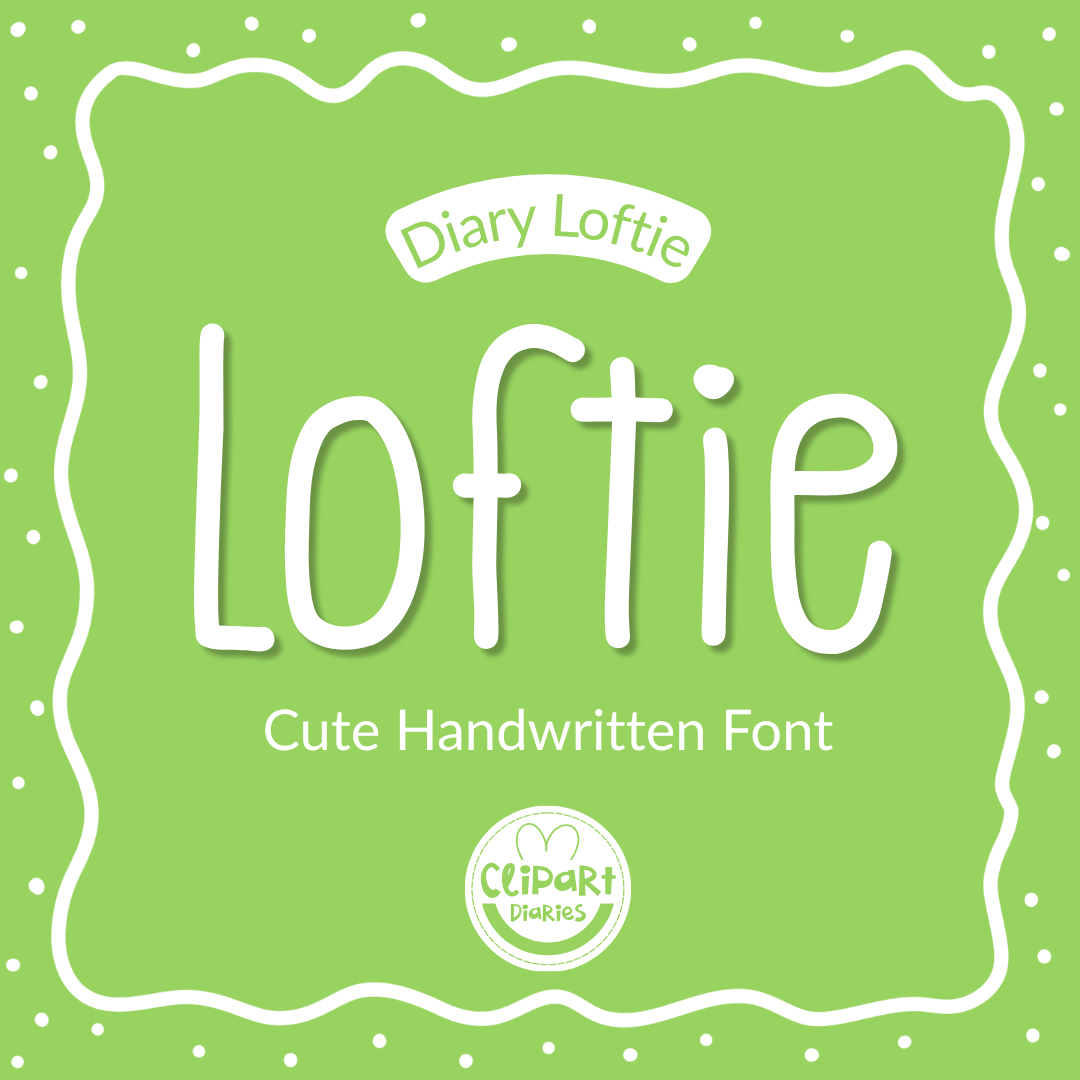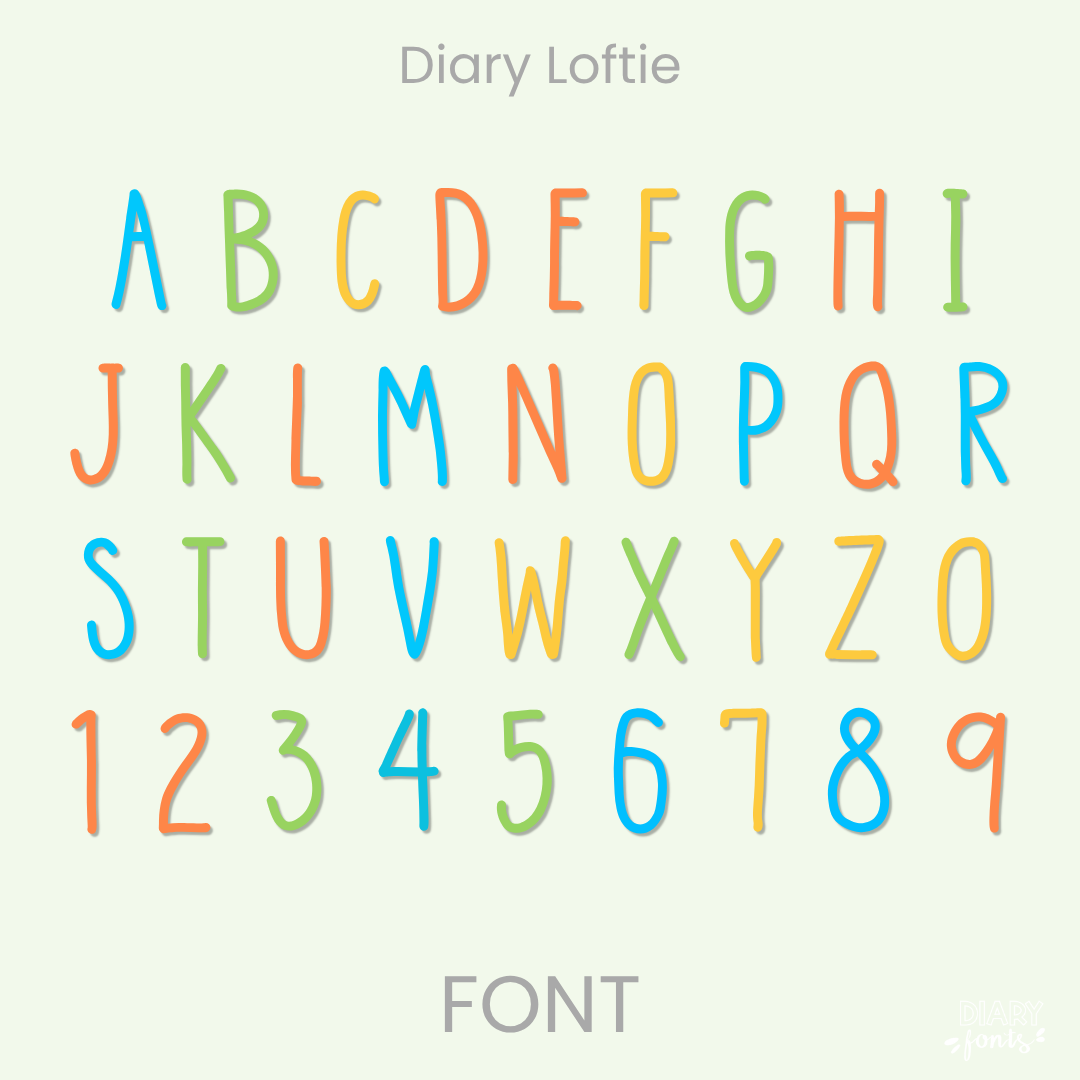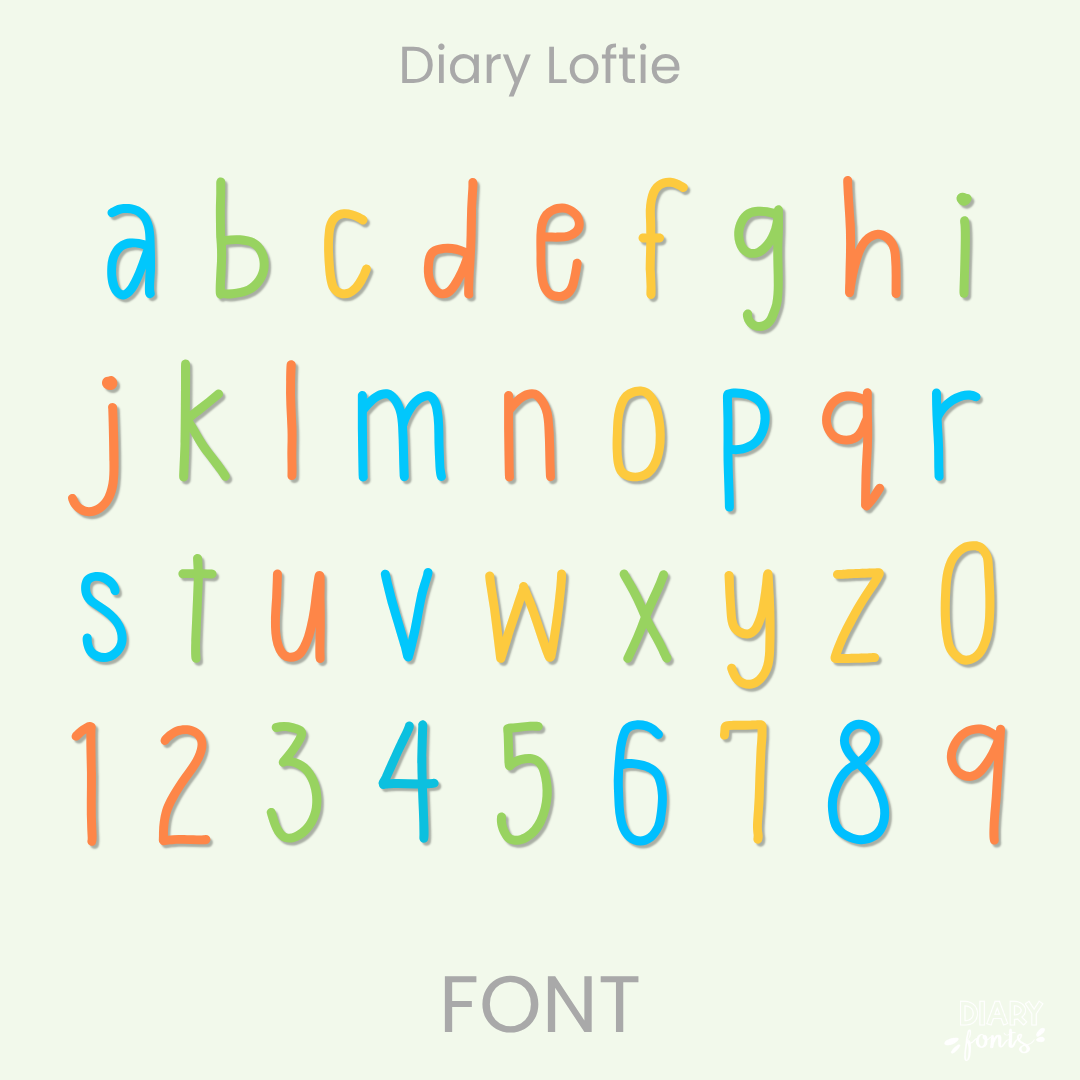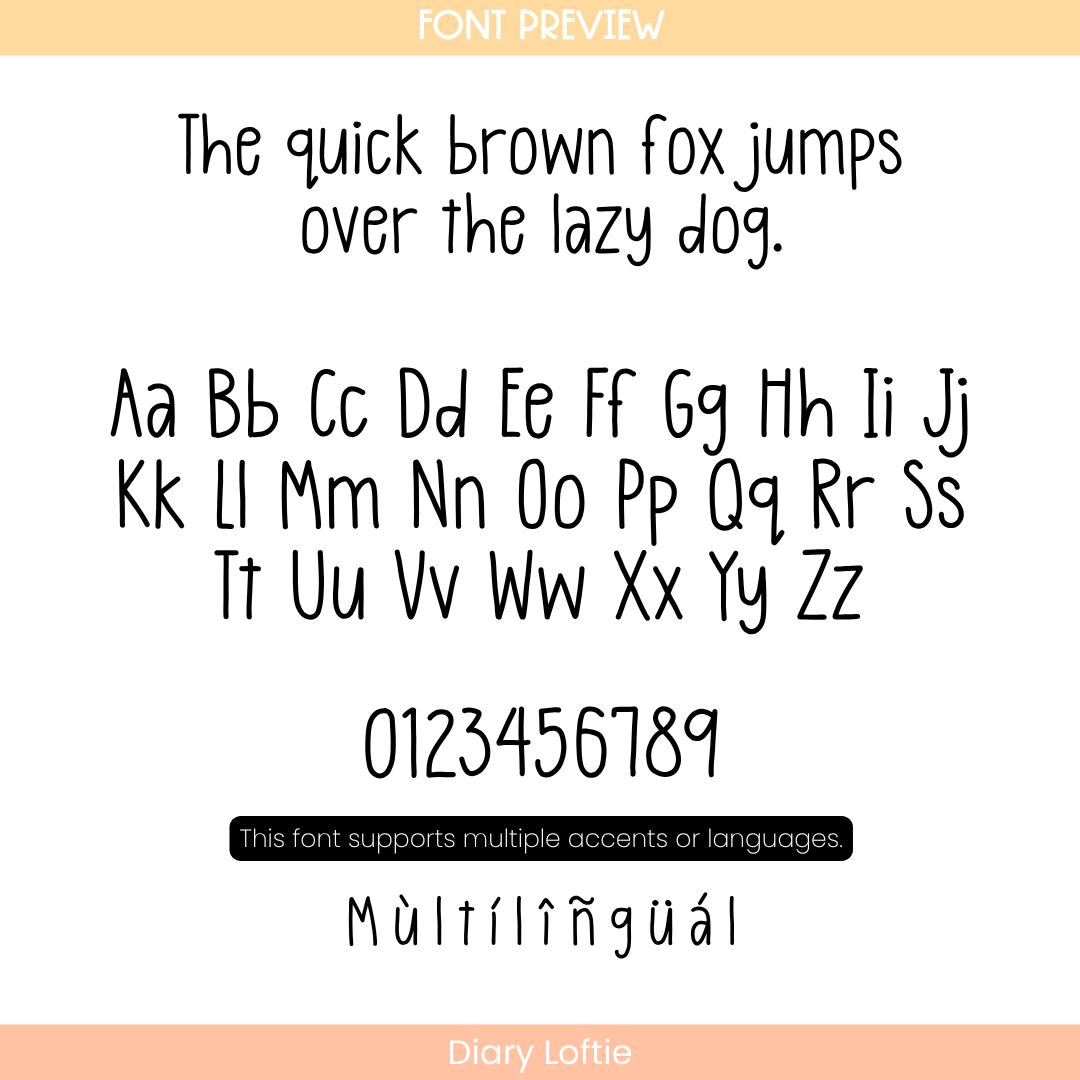
Why You’ll Love the Diary Loftie Font
If you want to give your projects a warm and welcoming look, Diary Loftie is an excellent choice. It features light, bouncy handwritten characters with natural imperfections and a delightful variation in letter heights, giving it a true, authentic handwriting style. While keeping its fun and carefree personality, it remains exceptionally clear and easy for students to read.